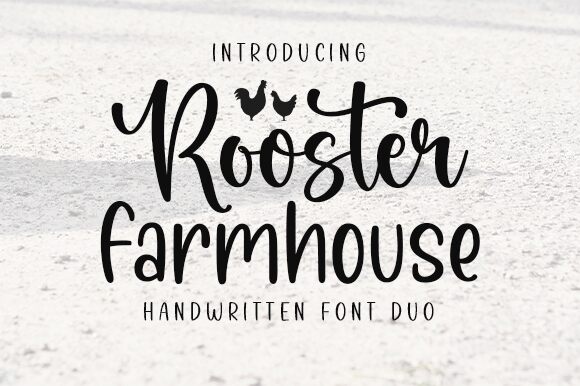
Rooster
Rooster, a handwritten font crafted by Graphix Line Studio, exudes personality and charm. Its fluid, seamless strokes and varied line weights evoke the spontaneity of ink on paper, creating an intimate and approachable aesthetic. The Rooster font's elegance is underlined by its casual yet sophisticated flair, making it an ideal choice for designs that require a personal touch.
With its modern calligraphy vibe, Rooster stands out in applications such as branding materials, invitations, and personalized products where a touch of handcrafted artistry is desired. The font's versatility extends to digital platforms as well, where its distinct style can add warmth to websites or social media graphics.
Embracing the balance between readability and stylistic flair, Rooster brings an artisanal quality to any creative project. Whether it's giving life to editorial content or adding character to advertising campaigns, this font is adept at turning simple messages into captivating visual stories.